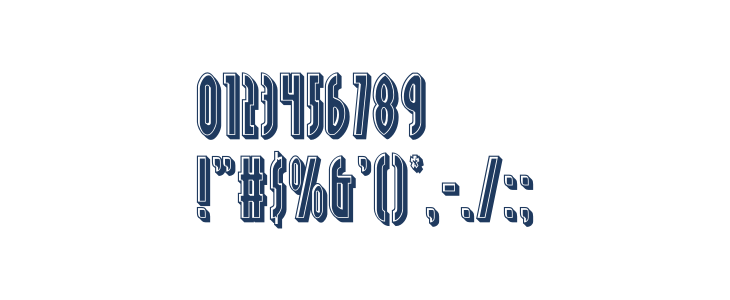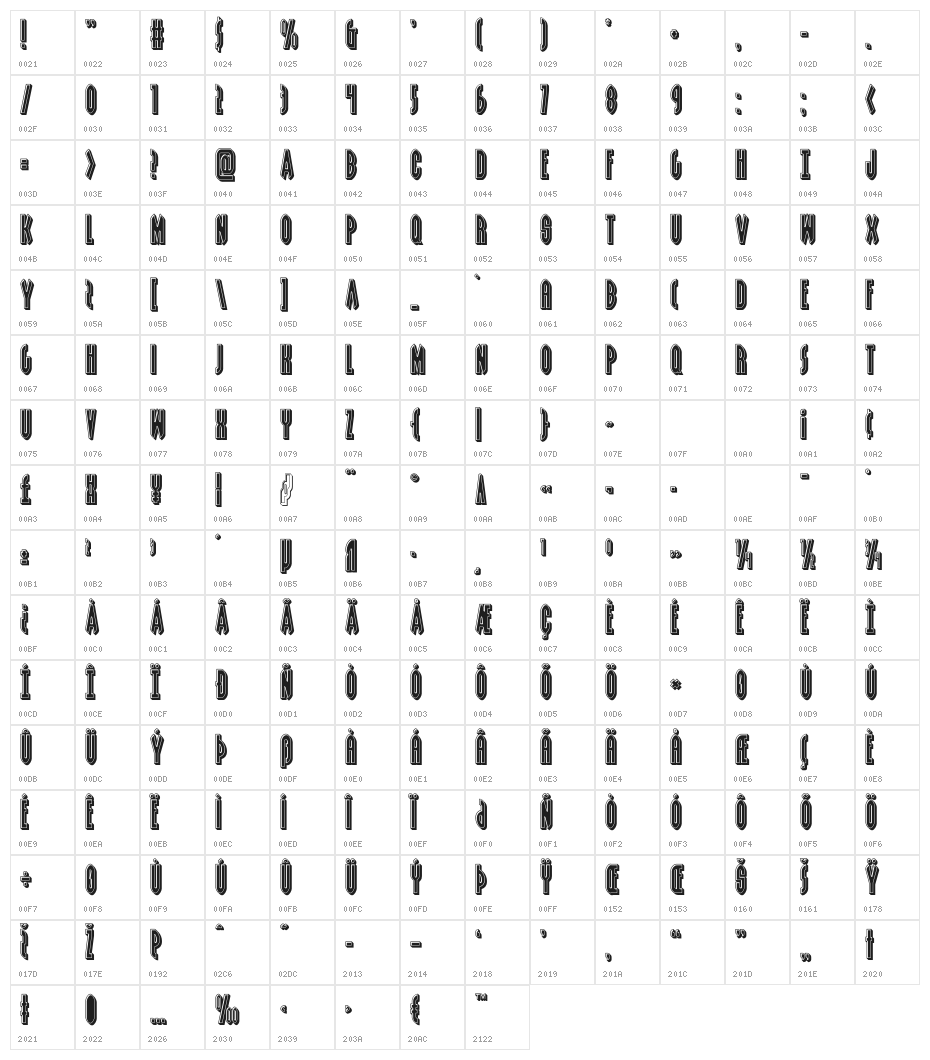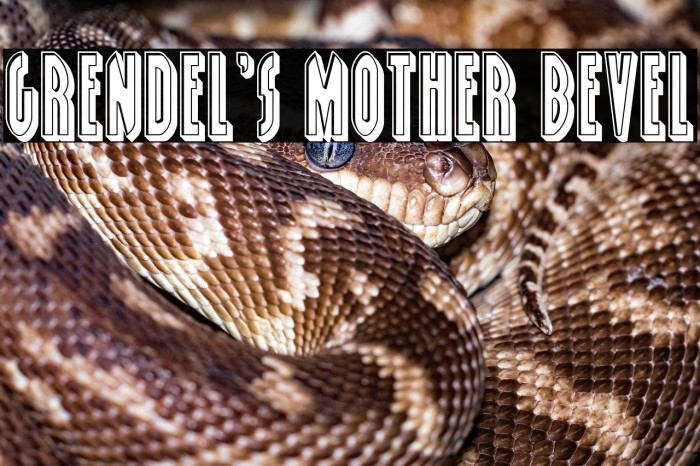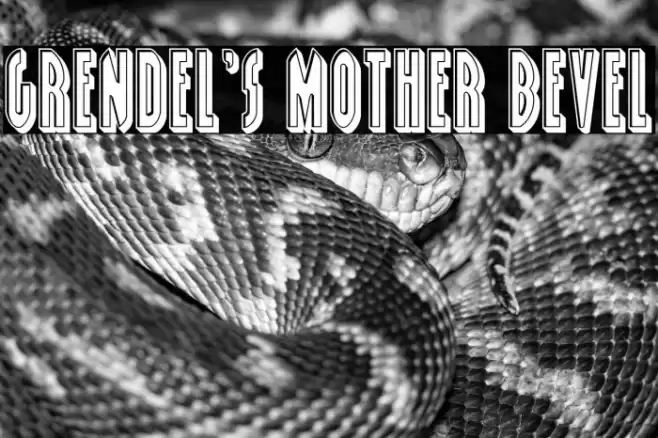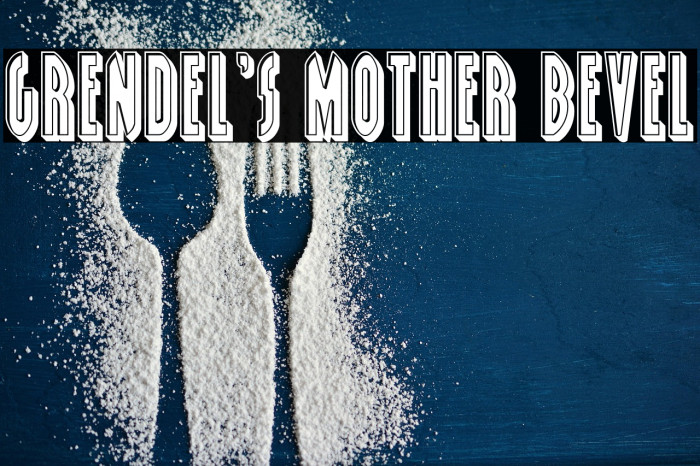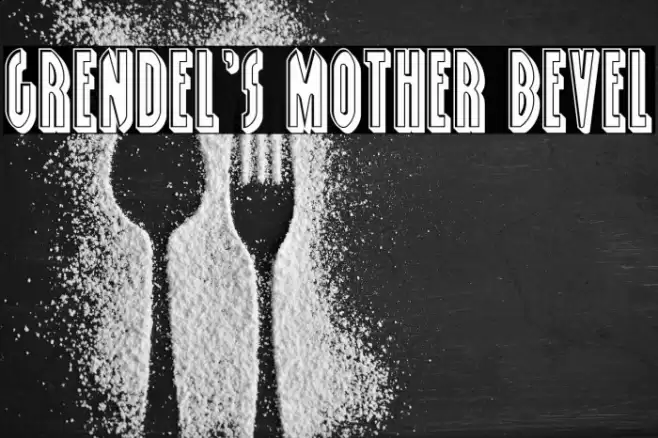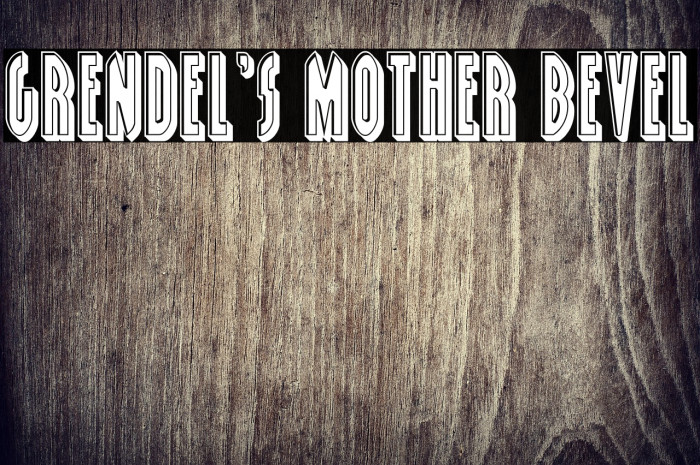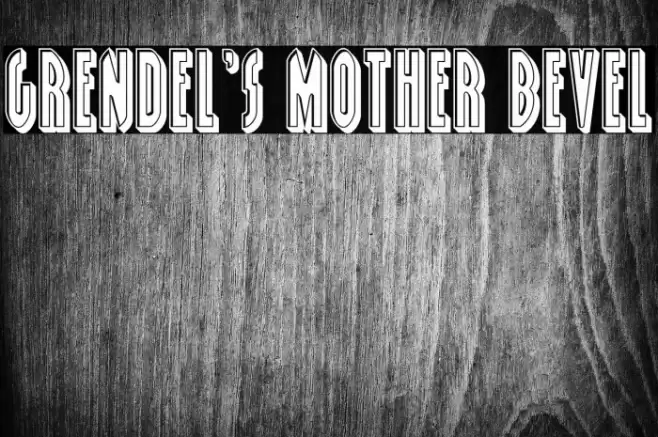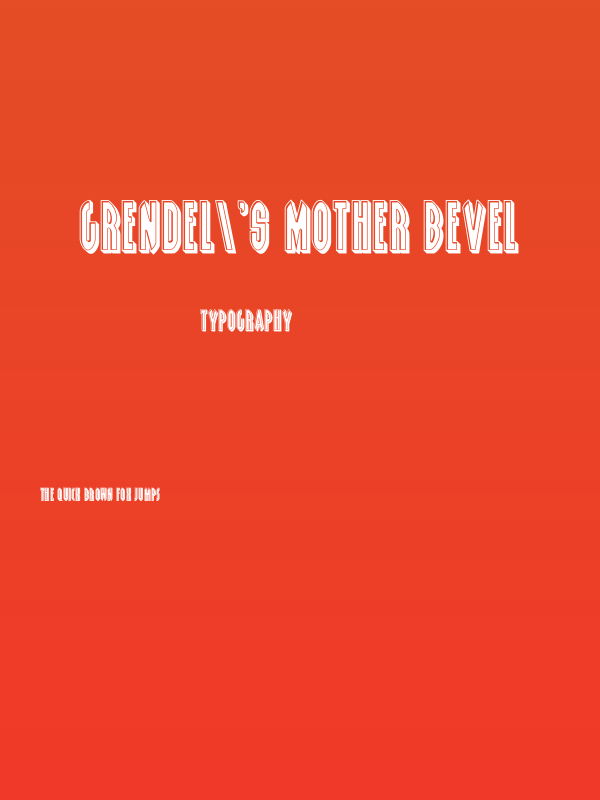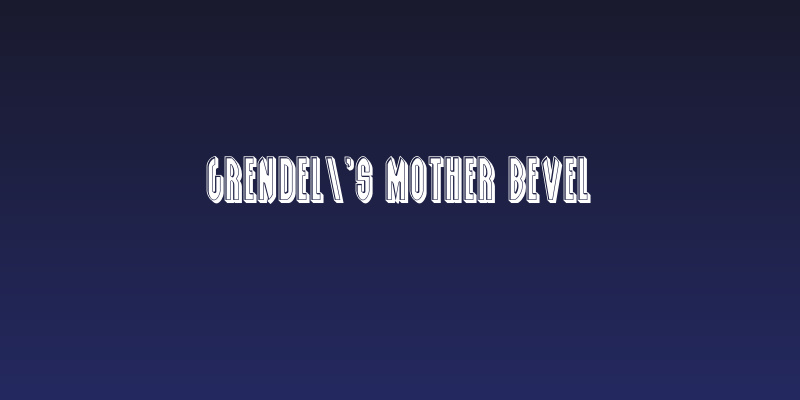
Grendel's Mother Bevel Font
Grendel's Mother Bevel Description
This font features a bold, three-dimensional beveled style that creates a striking visual impact. The characters are uppercase and have a strong, geometric structure with sharp angles and clean lines. The shadow effect adds depth, making it ideal for attention-grabbing designs. The font's boldness and unique style make it suitable for projects that require a standout display typeface.
| Proposed Projects | Ideal for posters, headlines, logos, and any design needing a bold, eye-catching typeface. |